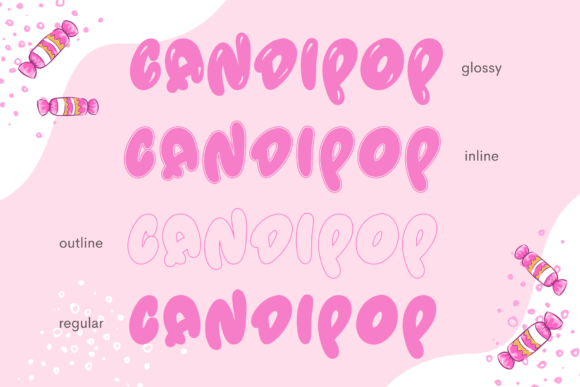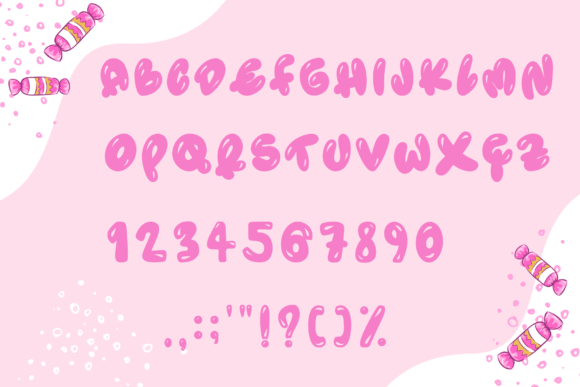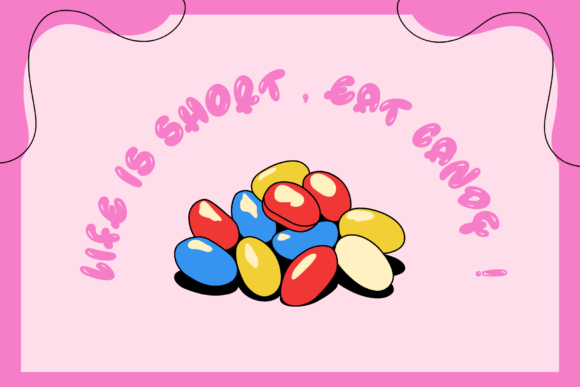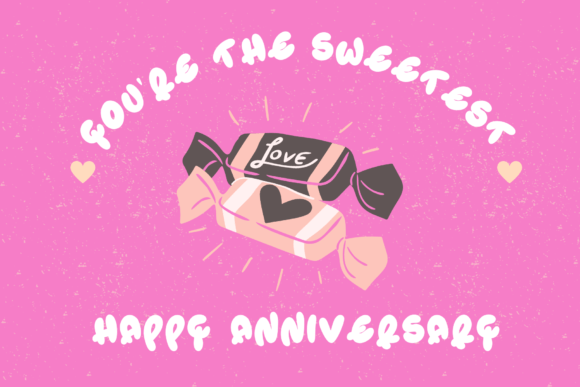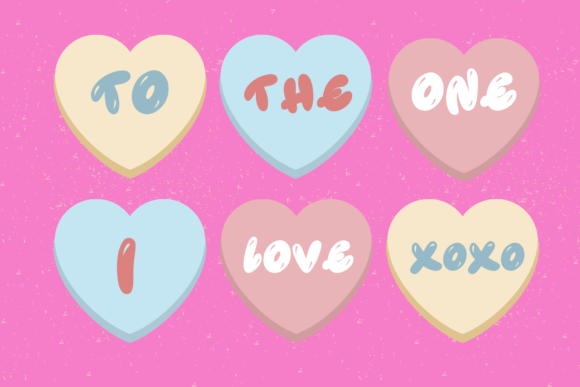
Get Ready to Pop with the Candipop Font
Have you ever been working on a design project and suddenly, a spark of inspiration hits you? Maybe it’s a bold color combination, a quirky illustration, or a font that perfectly captures the essence of your brand. For designers, those ‘aha’ moments are what make the job so exciting! And today, we’re going to talk about one such font that’s sure to bring a smile to your design – the Candipop Font.
This adorable decorative font is not just cute; it’s also incredibly versatile. Whether you’re working on product branding, content creation, or designing packaging, the Candipop Font will add a touch of whimsy and playfulness to your work. Its value lies in its ability to elevate even the simplest designs into something truly eye-catching. With the Candipop Font, you’ll be able to create display headlines, social media graphics, and more that will leave a lasting impression on your audience.
Candipop Font Key Features
- Font Family: Candipop Font is a sans-serif font family designed for digital use.
- Unique Characteristics: Candipop Font features a unique blend of modern and playful elements, with rounded corners, subtle curves, and a friendly feel, making it ideal for digital design projects.
Candipop Font Review
I recently had the chance to work with the Candipop font, and I must say it’s a fun and unique addition to any design project. ✨ The font’s playful, handwritten feel immediately caught my attention, and I appreciated the various font styles and weights that are available. ✨ The designer has done a great job of creating a consistent aesthetic across the different font styles, making it easy to switch between them and maintain a cohesive look.
One of the standout features of the Candipop font is its versatility. ✨ It can be used for a wide range of projects, from food and drink labels to children’s books and social media graphics. I also appreciated the fact that the font includes a number of alternate characters and swashes, which can add an extra touch of personality to your designs.
- ⚠️ The font may not be suitable for all types of projects, particularly those that require a more formal or professional tone.
- ⚠️ Some of the alternate characters and swashes can be a bit tricky to use, and may require some practice to get the hang of.
- ⚠️ The font is not available in as many languages as some other fonts, which may be a limitation for designers who need to create content in multiple languages.
Overall, I was impressed with the Candipop font and would recommend it to designers who are looking for a fun and playful font to add some personality to their projects. While it may have some limitations, I think it’s a great addition to any designer’s toolkit.
The Candipop font is ideal for creating eye-catching headlines, titles, and labels. It’s also suitable for use in social media graphics, posters, and flyers. Use it to add a touch of whimsy and playfulness to your designs.